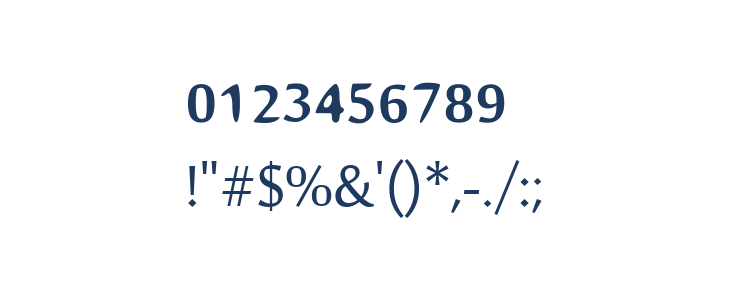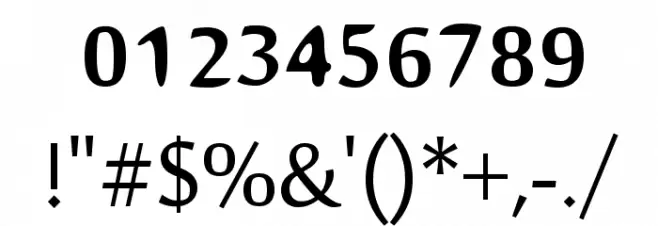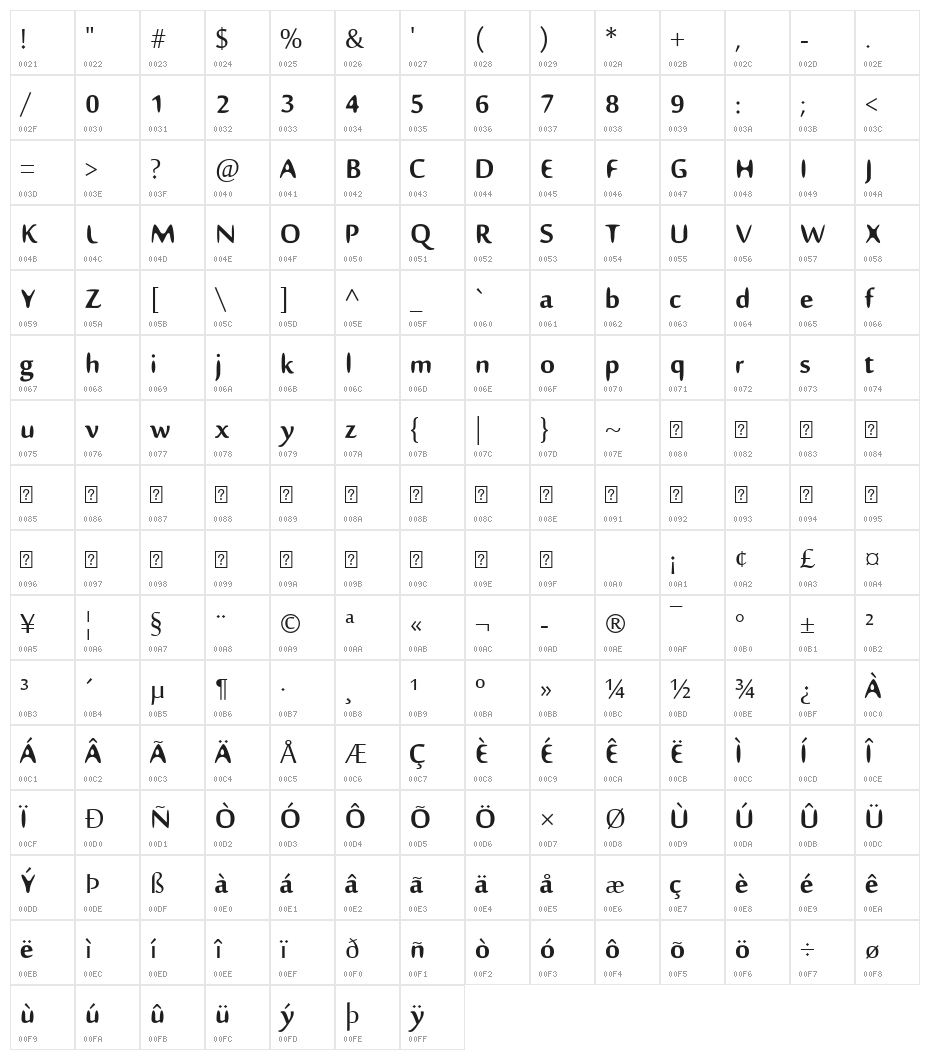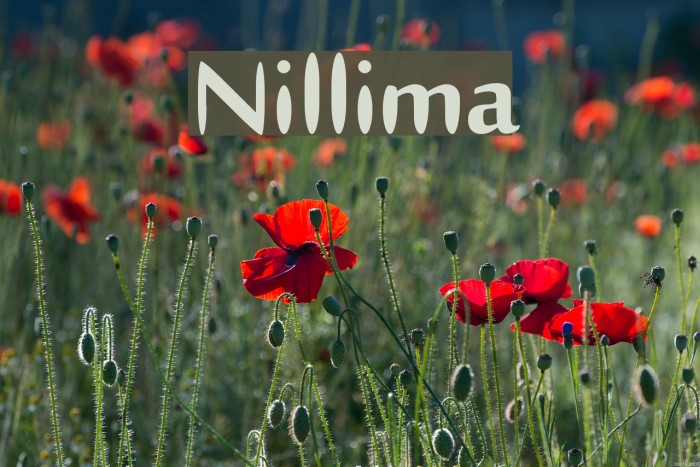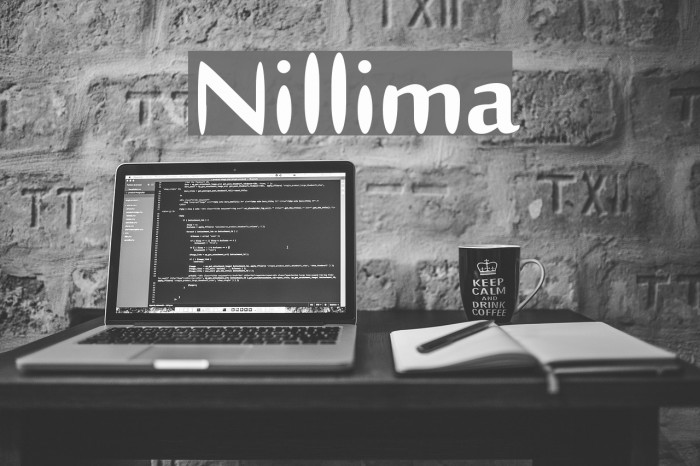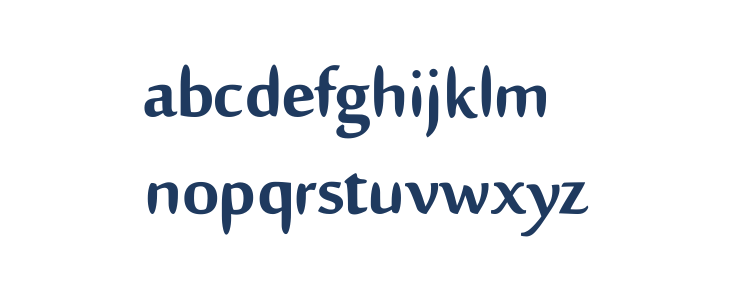
Nillima Font
Nillima Description
This font features a playful and organic design, characterized by its smooth, flowing curves and slightly irregular shapes. The letters have a hand-drawn quality, giving them a whimsical and approachable feel. The uppercase letters are bold and prominent, while the lowercase letters maintain a consistent style with a slightly more compact form. The numerals are clear and easy to read, matching the overall aesthetic. Special characters are well-integrated, maintaining the font's unique style. This font is ideal for projects that require a friendly and informal touch.
Sifat Ahmed
| Proposed Projects | Ideal for children's books, greeting cards, playful branding, and creative posters. |